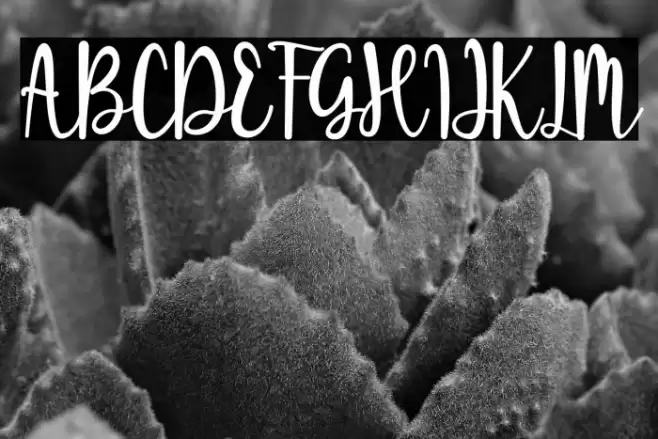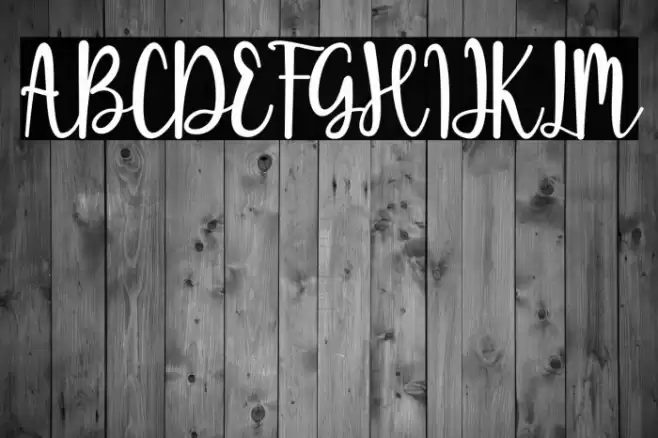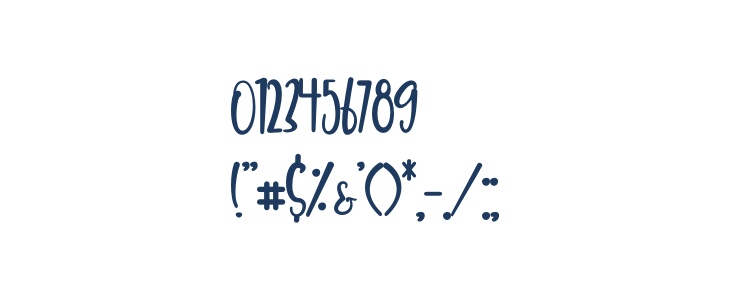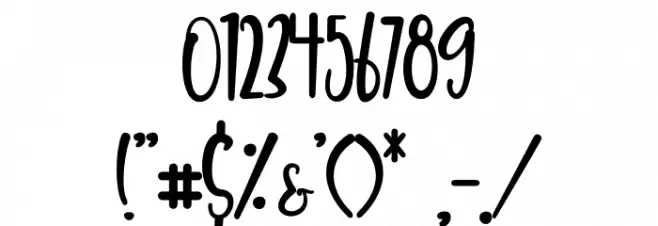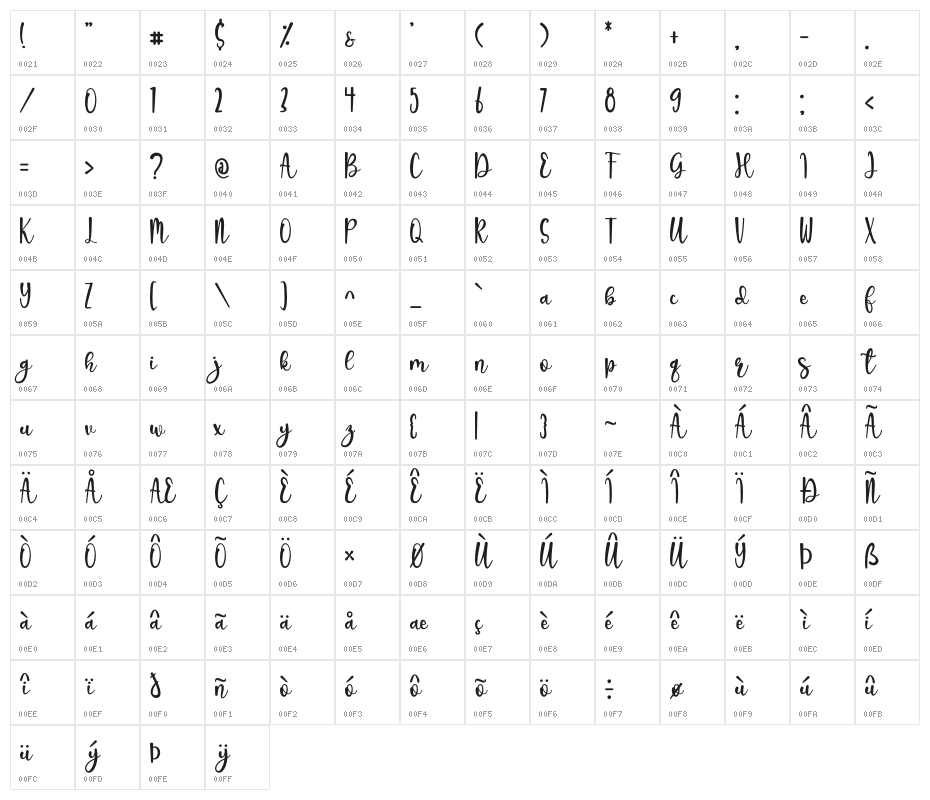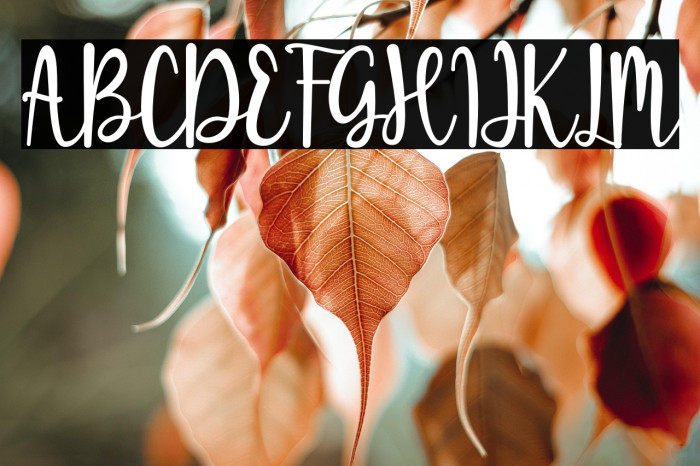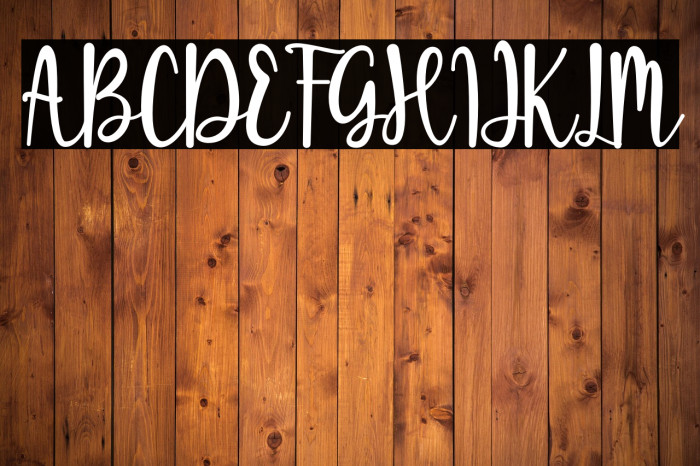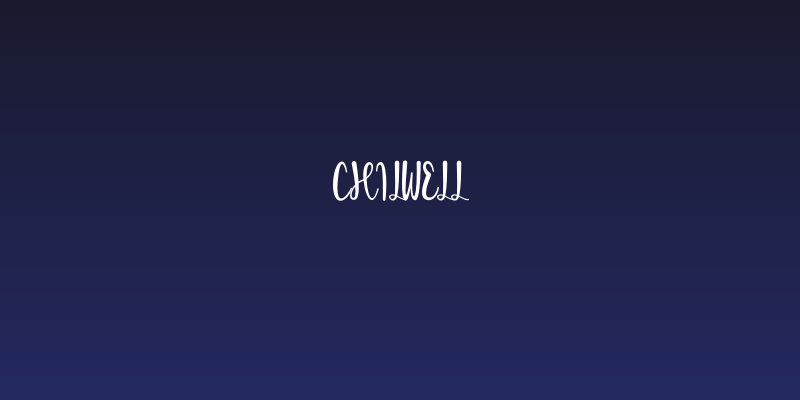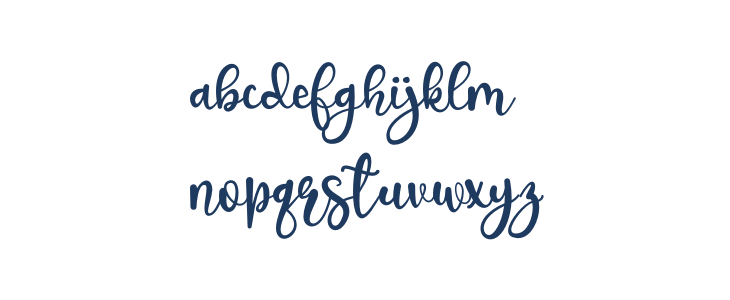
Chilwell Font
Chilwell Description
This font features a playful and flowing script style, characterized by its smooth, connected strokes and a handwritten aesthetic. The uppercase letters are bold and slightly elongated, giving them a dynamic presence, while the lowercase letters maintain a consistent flow with elegant loops and curves. The numerals and special characters are designed to complement the overall style, maintaining the same fluidity and charm. This font exudes a sense of creativity and warmth, making it ideal for projects that require a personal touch.
A playful, flowing script font with a handwritten aesthetic from Uncategorized fonts.
- Font: Chilwell
- Proposed Projects: Ideal for wedding invitations, greeting cards, branding projects, and social media graphics.
- Use Case: Logos, Invitations, Social Media Graphics